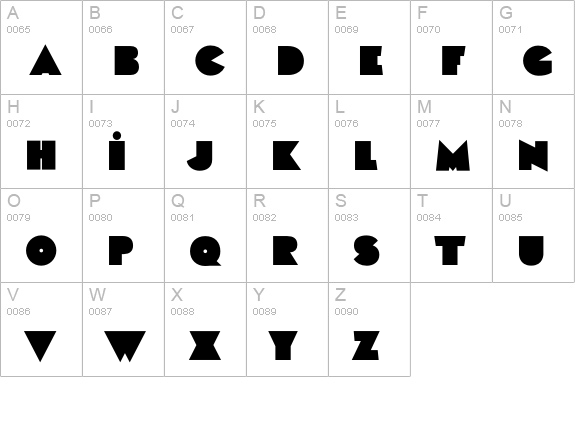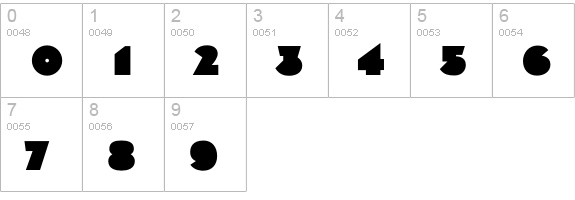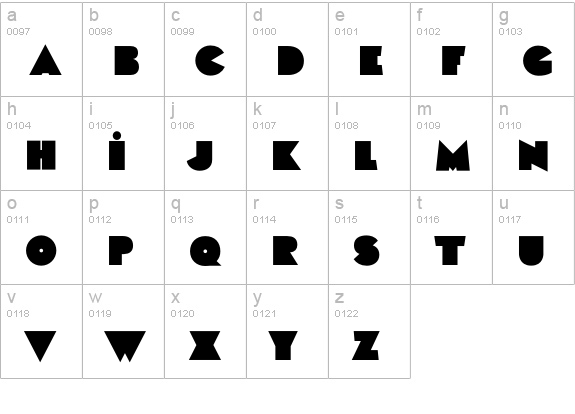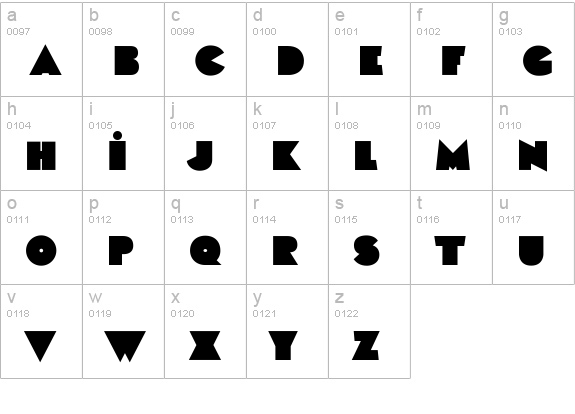
Black Boton Std Bold Font Details
Black Boton Std Bold is a maximum-weight, dramatic variant in the Black typeface family \xE2\x80\x94 well suited to maximum-impact headlines, posters, and packaging.
Black Boton Std Bold font is a modern and sophisticated typeface that exudes strength and elegance. With its bold and commanding presence, this font is perfect for making a bold statement in your designs. Its clean lines and sharp edges give it a sleek and professional look that is sure to catch the eye. Best of all, Black Boton Std Bold font is completely free to download at FontsMarket.com. Whether you are designing a poster, logo, or any other project that requires a bold and impactful font, Black Boton Std Bold is the perfect choice. Download it today and add a touch of sophistication to your designs!